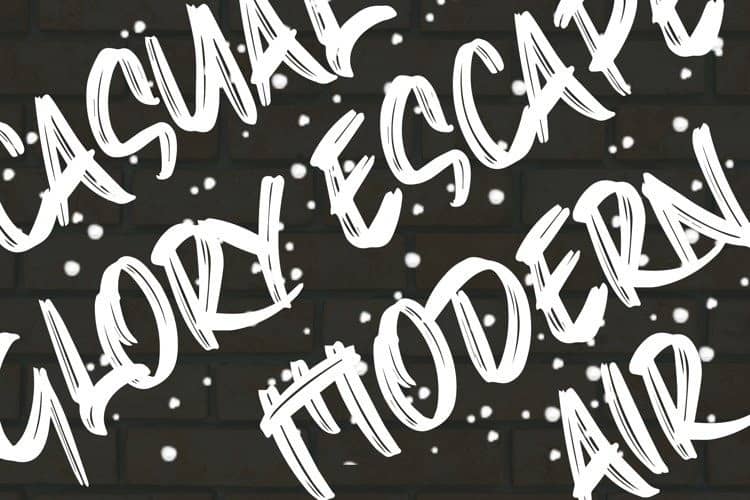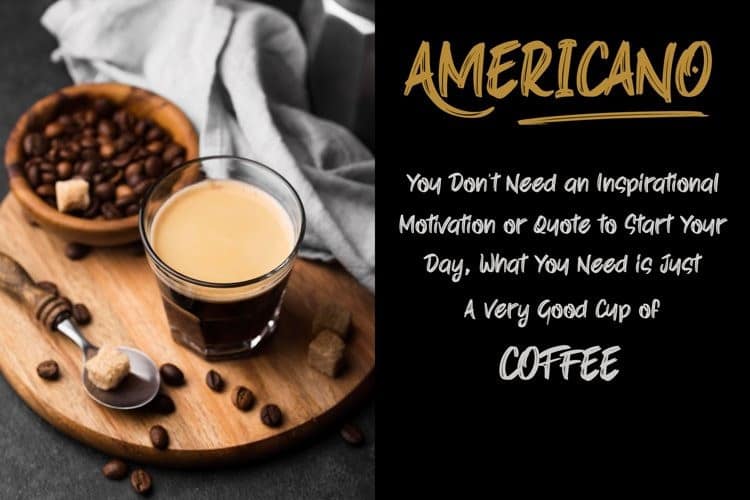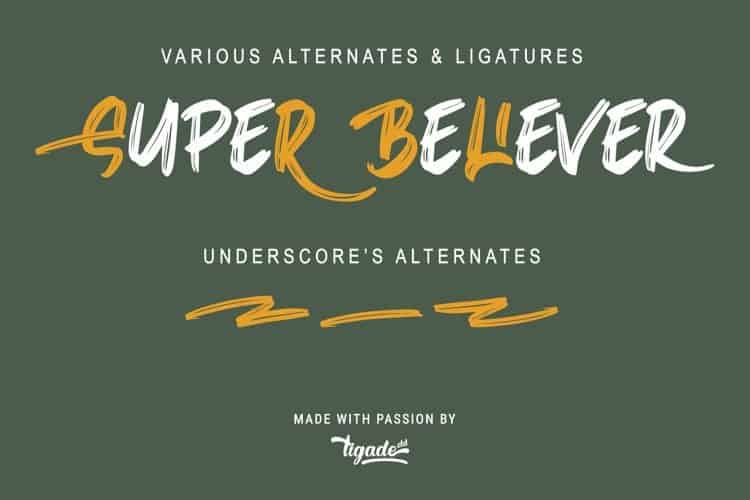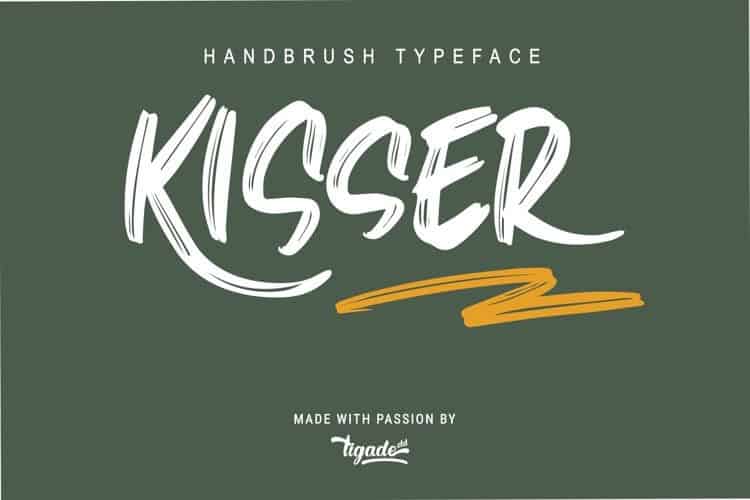
Kisser Brush Font
Kisser Brush Font is a lovingly handwritten brush script, with an air of grace and flamboyancy. It’s designed and shared by Tigade Std. This font is a strong, street-friendly brush font bursting with spirit. With extra attention to natural strokes and sharp details, Kisser Brush Font is ideal for logos, apparel, quotes, product packaging, or anything which needs a typographic turbo-boost.